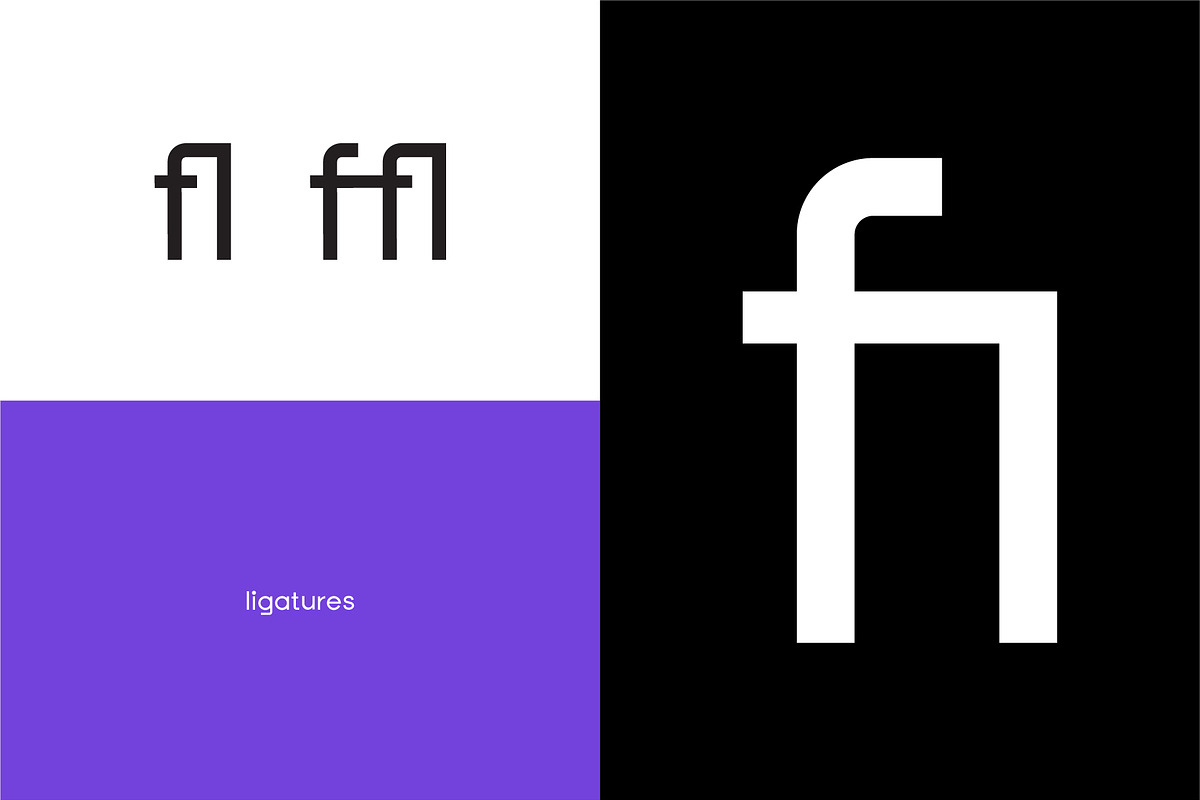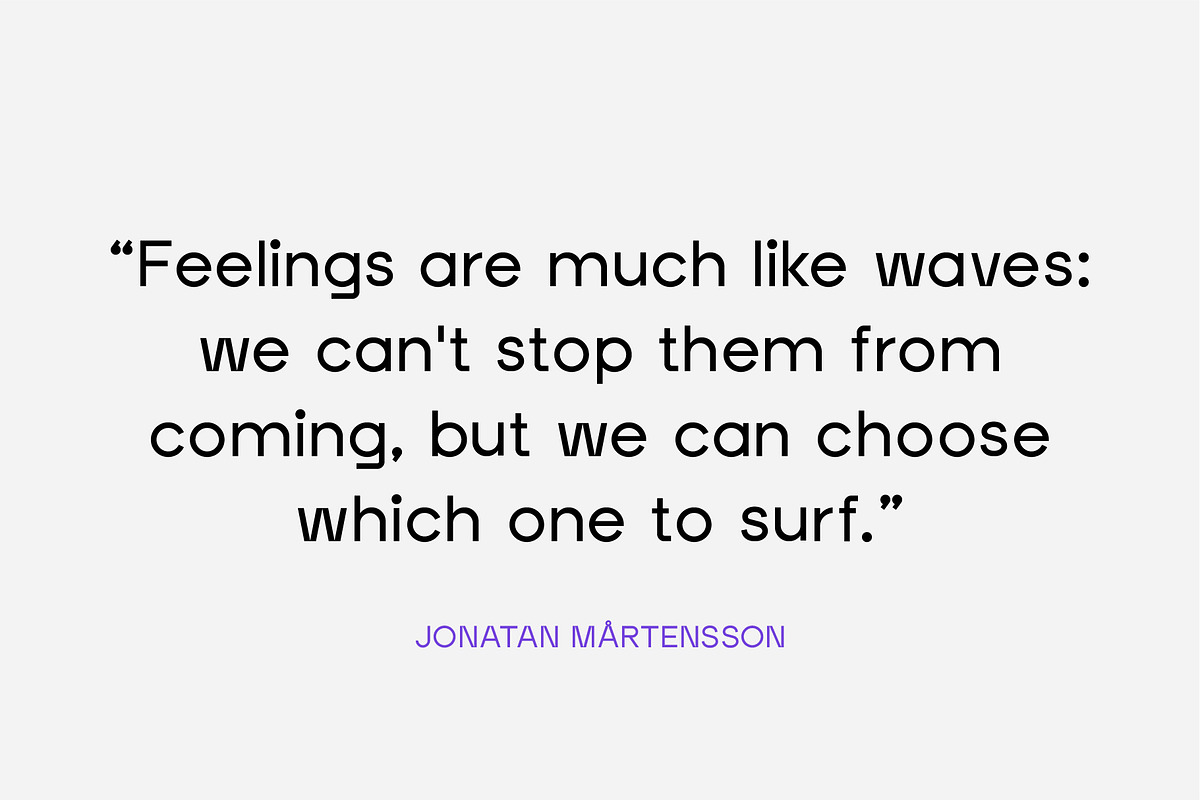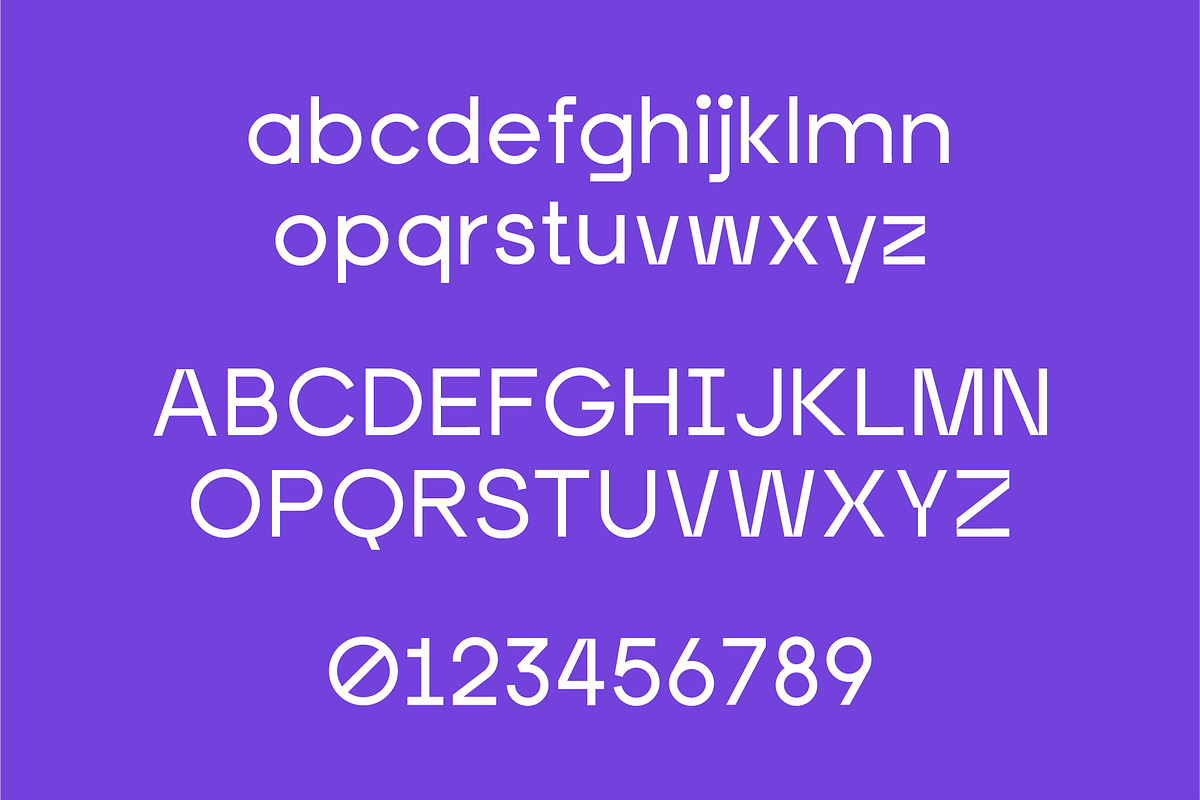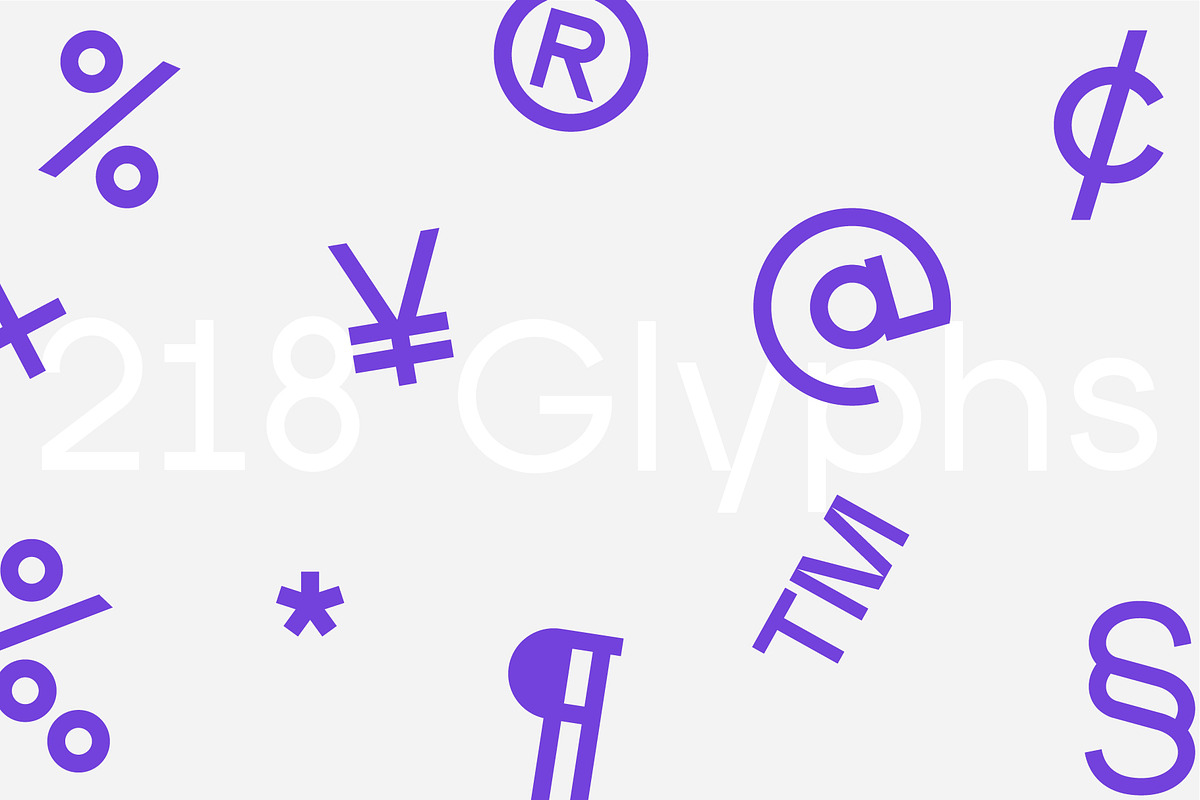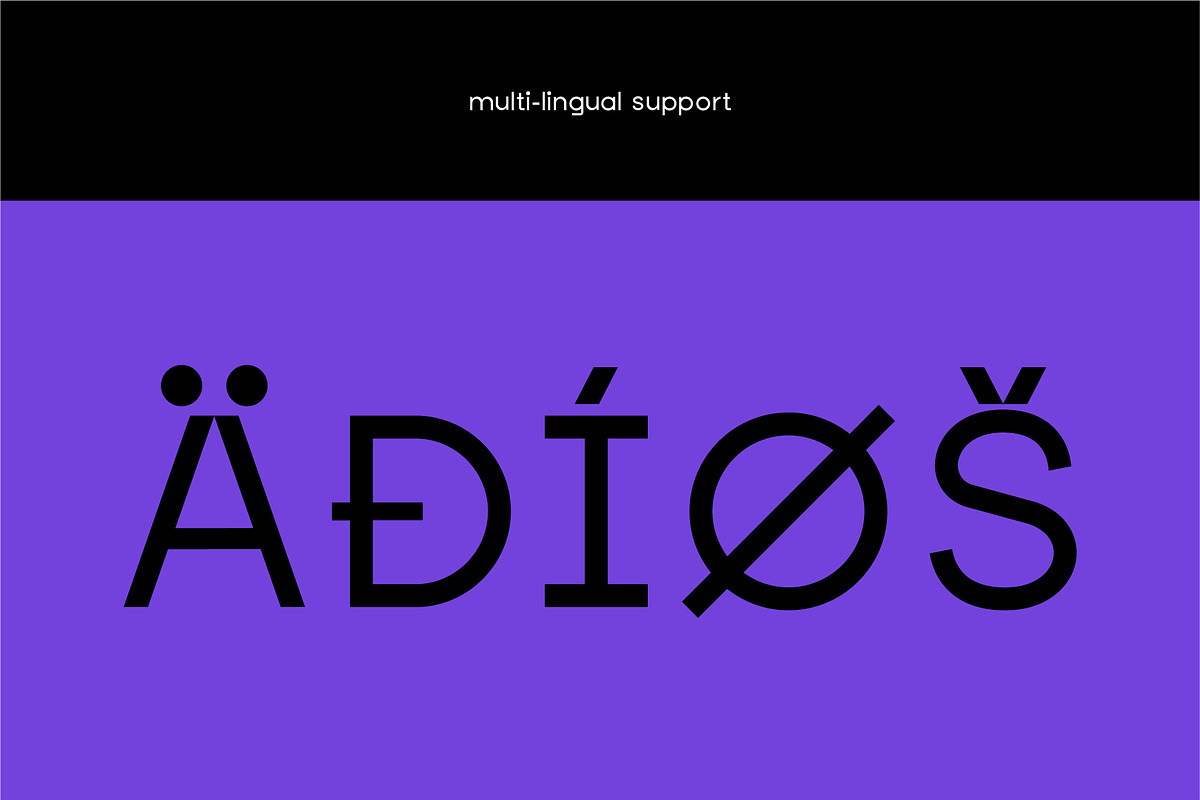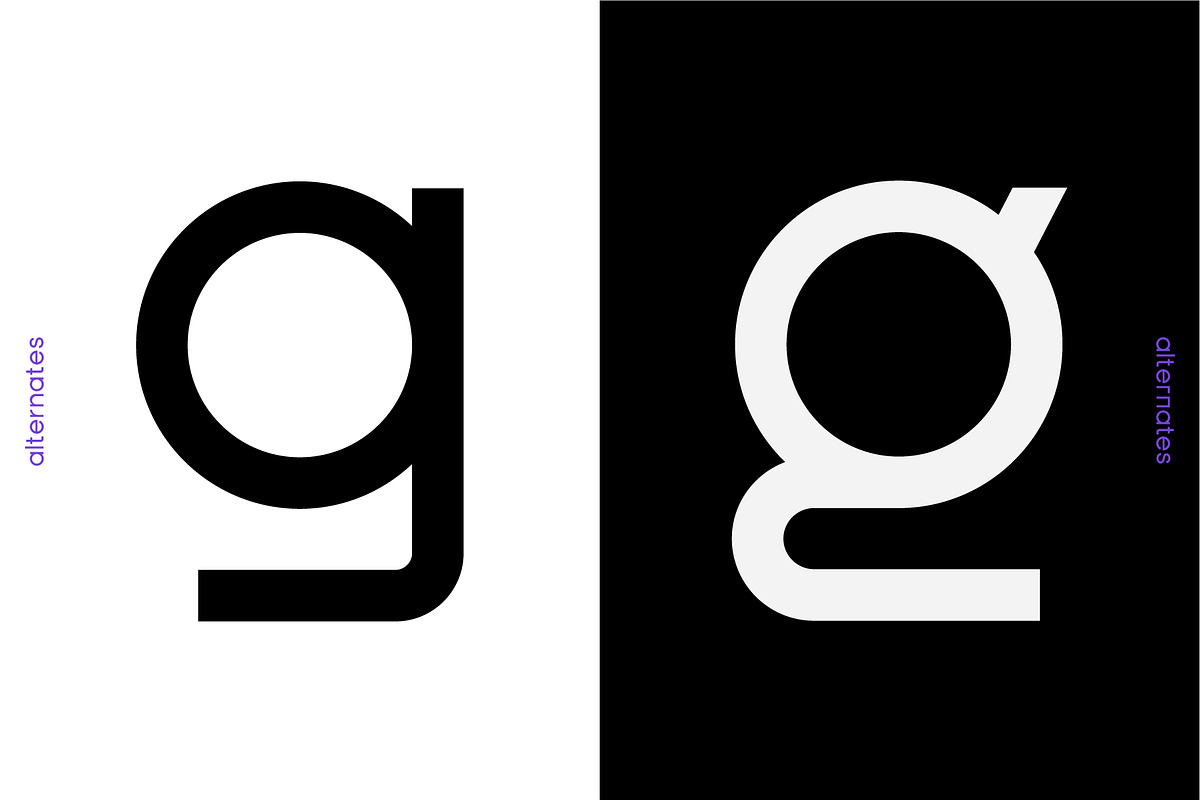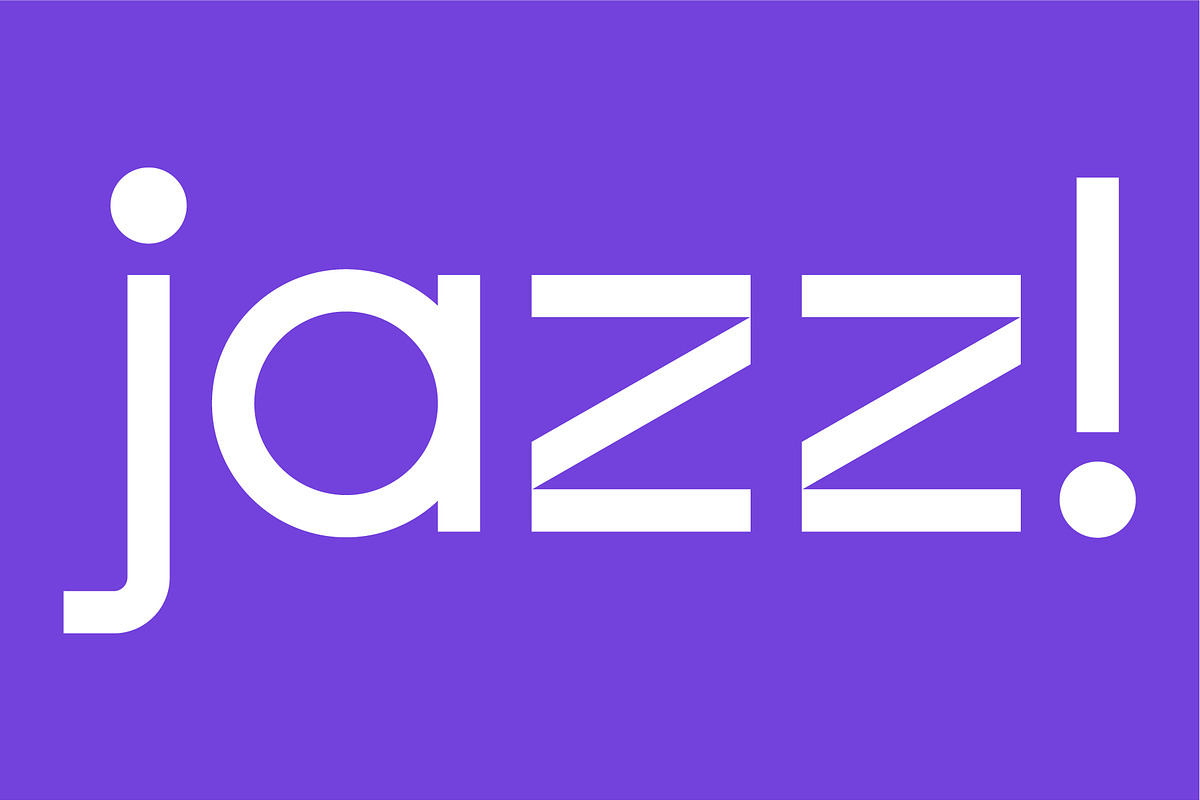
Enzyme - Display typeface font
Enzyme – A contemporary sans-serif display typeface
Enzyme is a new, contemporary sans-serif display font that is can be used for posters, editorial layouts and logos to give your work a unique, modernist edge.
It comes in one weight, with 218 glyphs for multi-lingual support as well as added flexibility through the use of alternate characters.
Multilingual support for various languages including: Afrikaans, Albanian, Catalan, Danish, Dutch, English, French, German, Italian, Norwegian, Portuguese, Spanish, Swedish, Zulu
Alternates for added flexibility